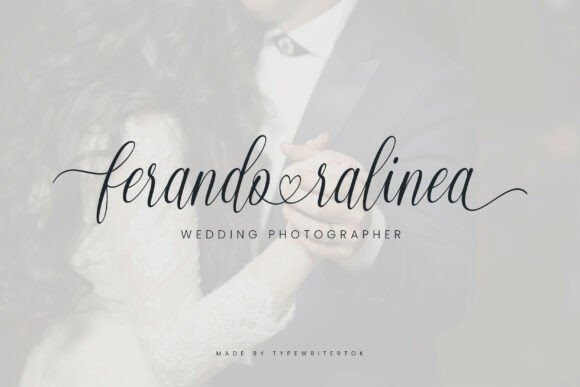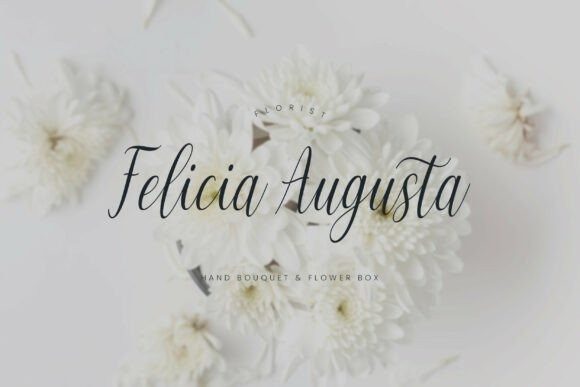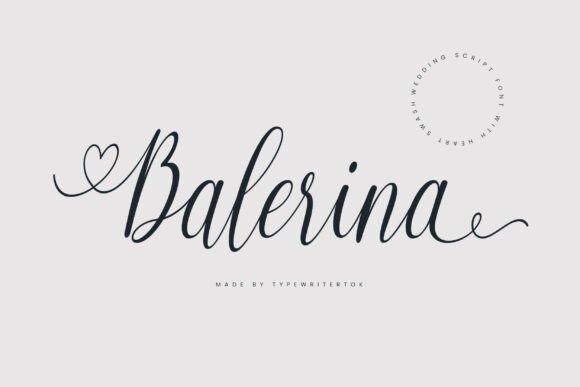
Balerina Script Font
Balerina Script Font is a graceful wedding script font designed to bring romance and elegance to your projects. With its flowing strokes and delicate curves, this font is perfect for wedding invitations, bridal shower designs, elegant branding, love letters, greeting cards, and event stationery. Let Balerina add a timeless and sophisticated touch to your special moments.